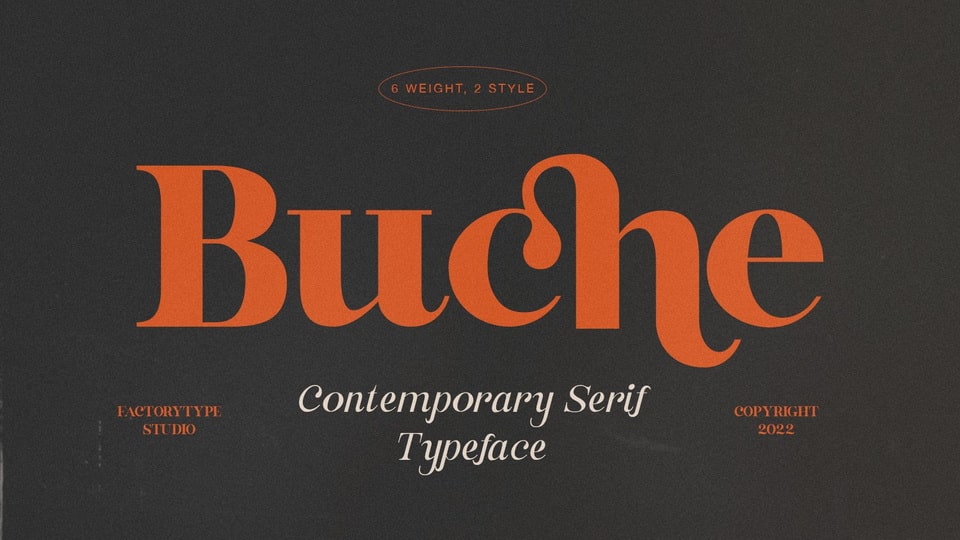
Download Buche font, a contemporary serif font designed for logo and brand design. Buche font exudes an air of affluence and sophistication, despite its curvy appearance.
Designer: Factory Type